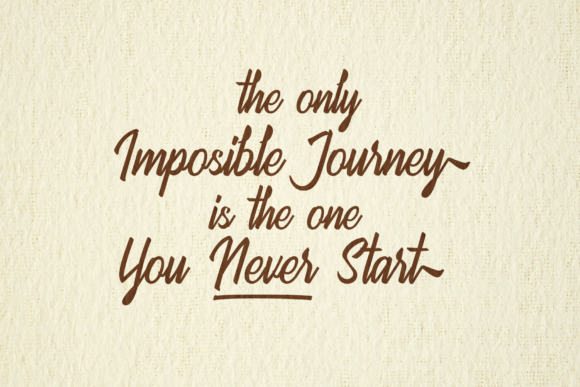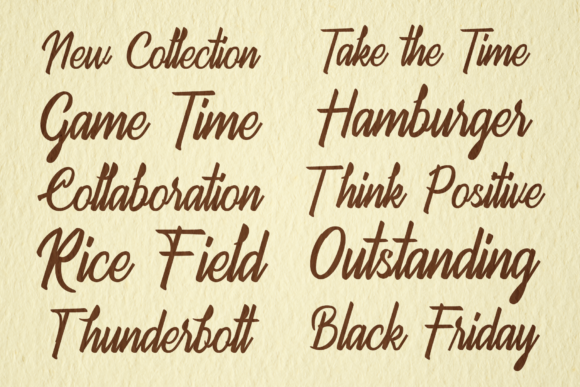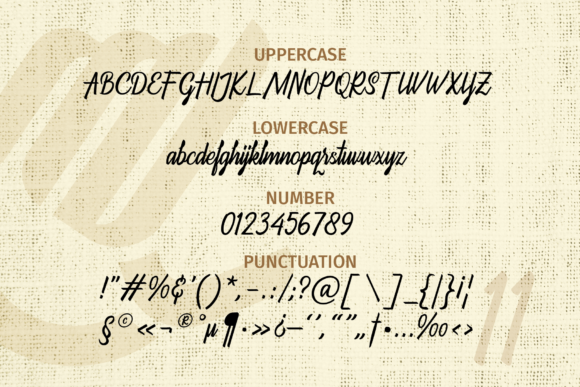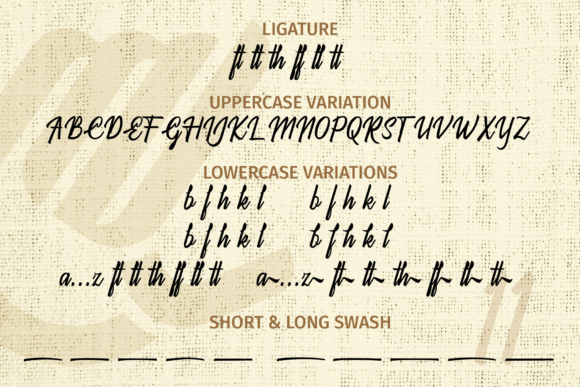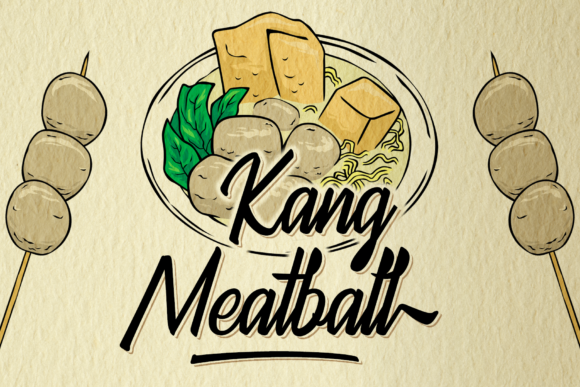
About Kang Meatball Script Font
Kang meatball is a script font inspired by brush pen calligraphy. This brush font is suitable for logos, posters, advertising, gift cards, name cards, t-shirt designs, and more. This cool font can also be combined with visual elements to create posters, advertising, t-shirt designs, or book cover designs.